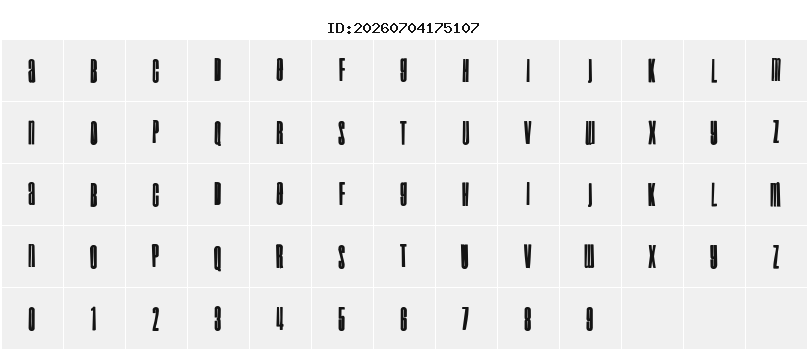
• Font Name: Droid Ink
• Full Font Name: Droid Ink
• Designer: Ray Larabie
About Droid Ink.ttf
Droid Ink.ttf is a modern, elegant sans-serif font designed for ultimate readability and visual harmony. Perfect for branding, headlines, web design, and print materials.